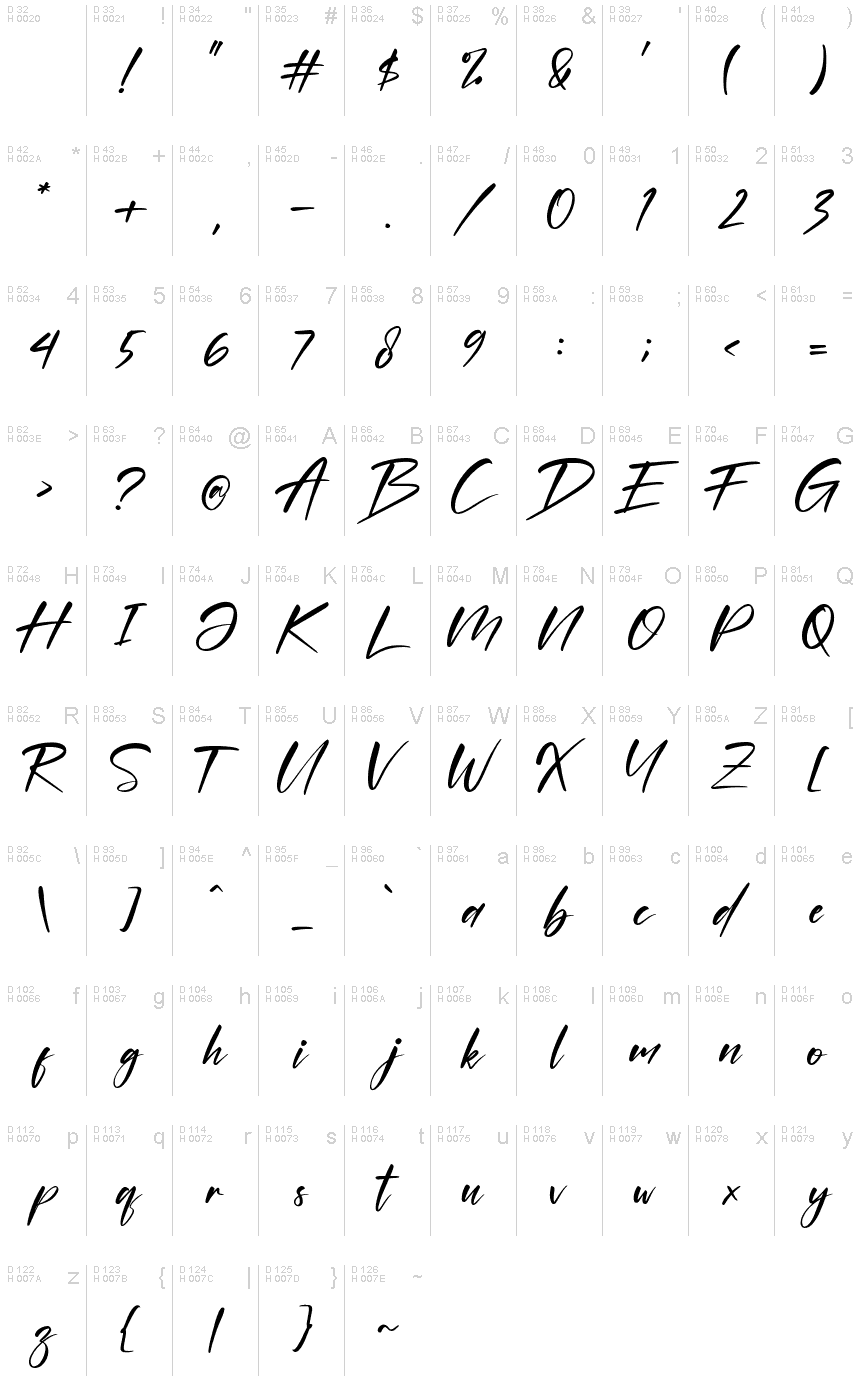
Ganboster (Demo)
Ganboster is a stunning semi-light handwritten font created by Muhammad Halomoan. With its unique style, this font is perfect for adding that personal touch to a wide range of projects. From wedding invitations and greeting cards to branding materials and social media posts, Ganboster's playful yet elegant design will make your text stand out. Its semi-light weight makes it easy to read, while still retaining a delicate and whimsical feel. Whether you're looking to add some personality to your print designs or create eye-catching digital content, Ganboster is the perfect choice for any project that requires a touch of charm and elegance.